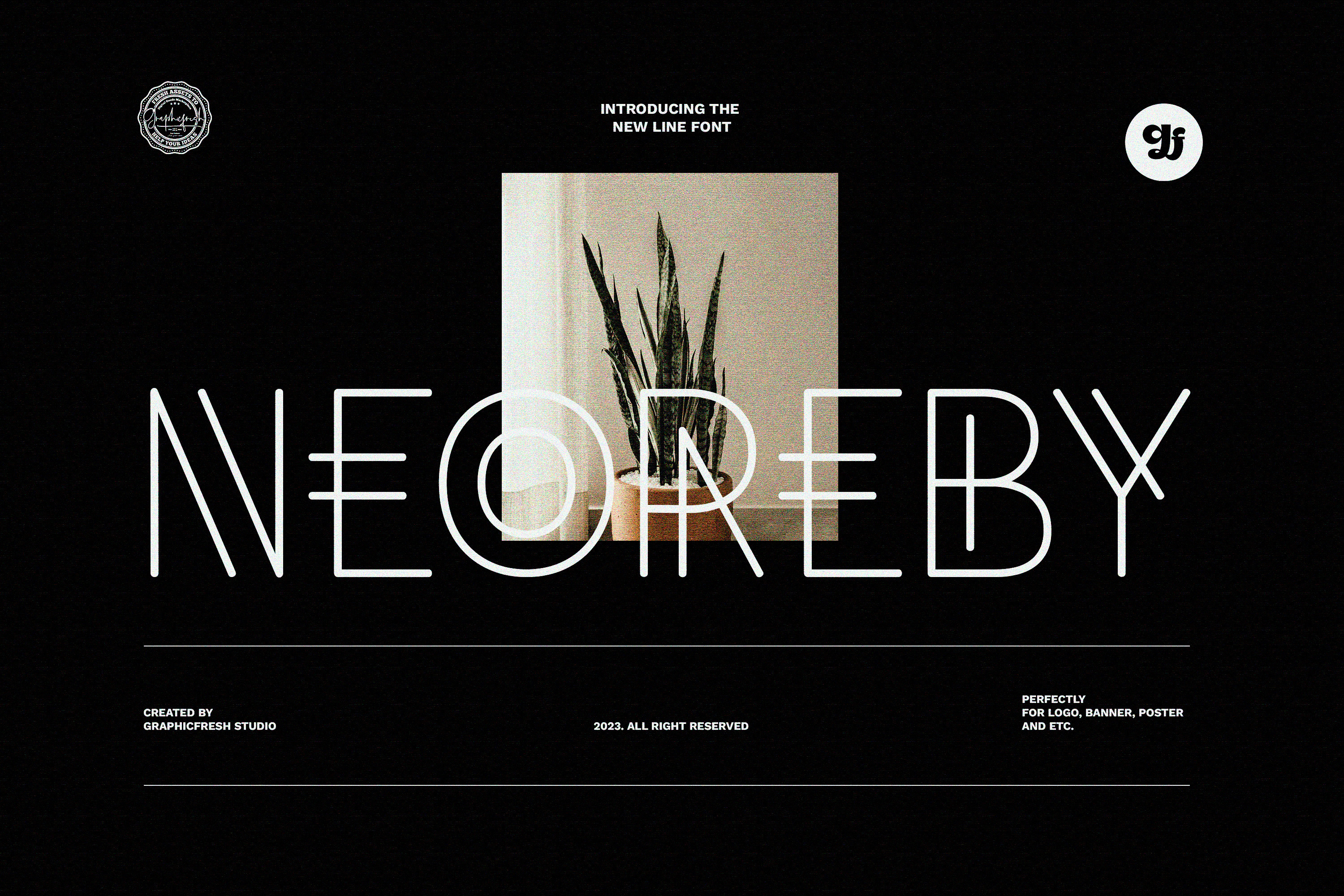
Neoreby - The Display Line Font
Starting the new year with a new font. We present something different. The font this time has a straight-line theme. This font is inspired by the lamp style of the past few years. Elongated incandescent lamp. We combine aesthetic and elegant styles in the preview. Actually suitable also for styles in neon form. But we're taking a little dive into the style of today's design trends.